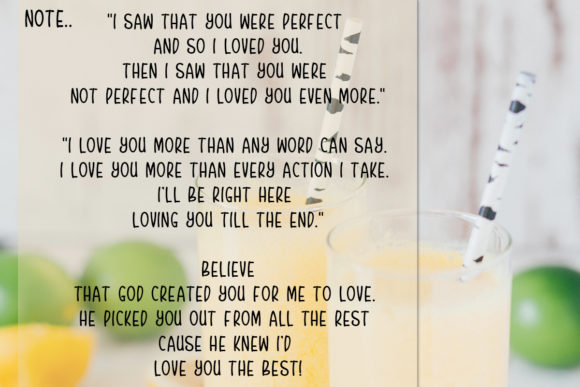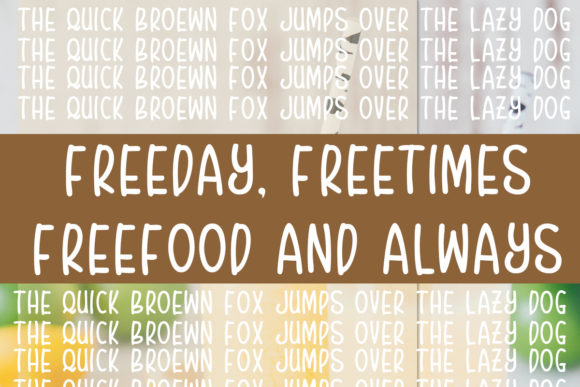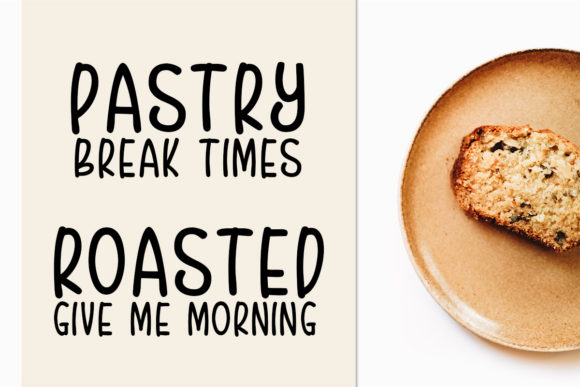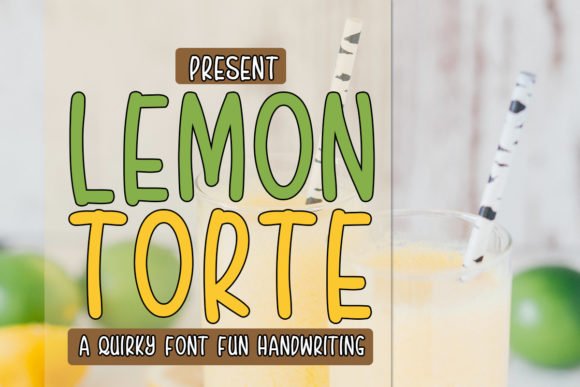
Introduction to Lemon Torte Font
Lemon Torte is a quirky and jolly display font.
Whether you are using it for cartoon-related designs, children’s games, quotes, titles, brand names, book covers, posters, or just any creation that requires a touch of beauty, this font is a great choice .
Key Features of Lemon Torte Font
Why Choose Lemon Torte Font?
Lemon Torte Font offers exceptional quality and versatility, making it a valuable addition to your design toolkit. Whether you’re creating for personal projects or commercial use, Lemon Torte Font delivers professional results.